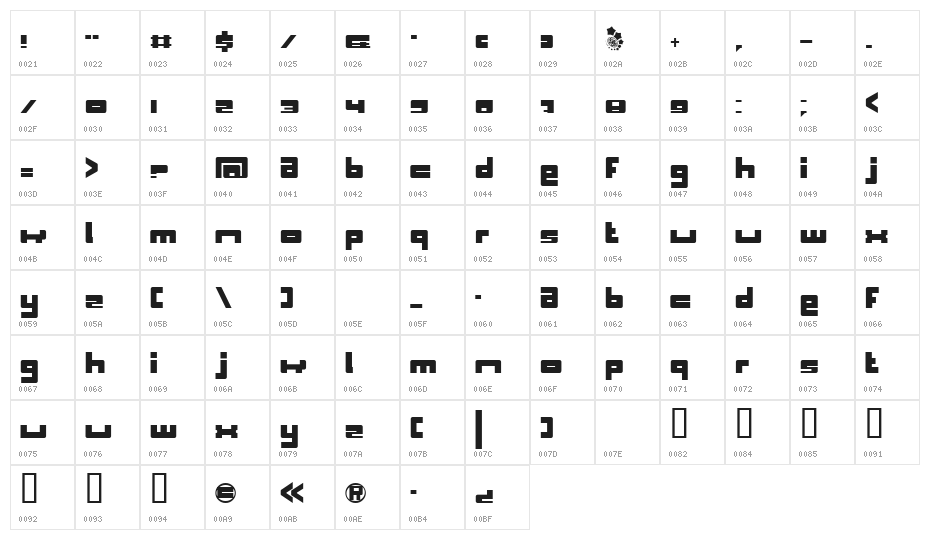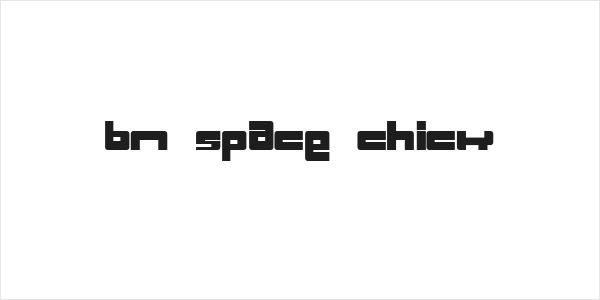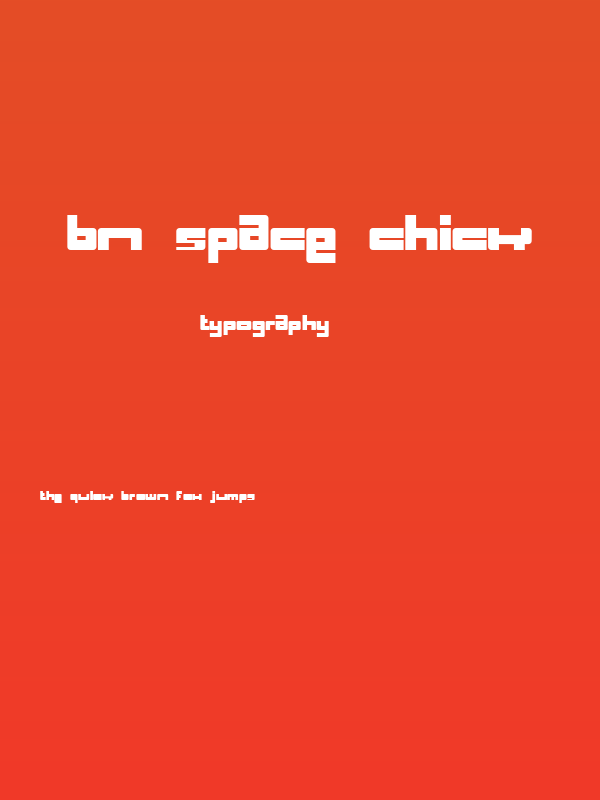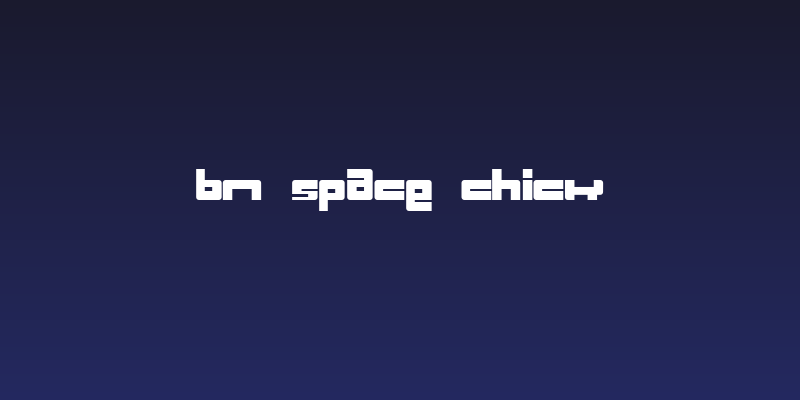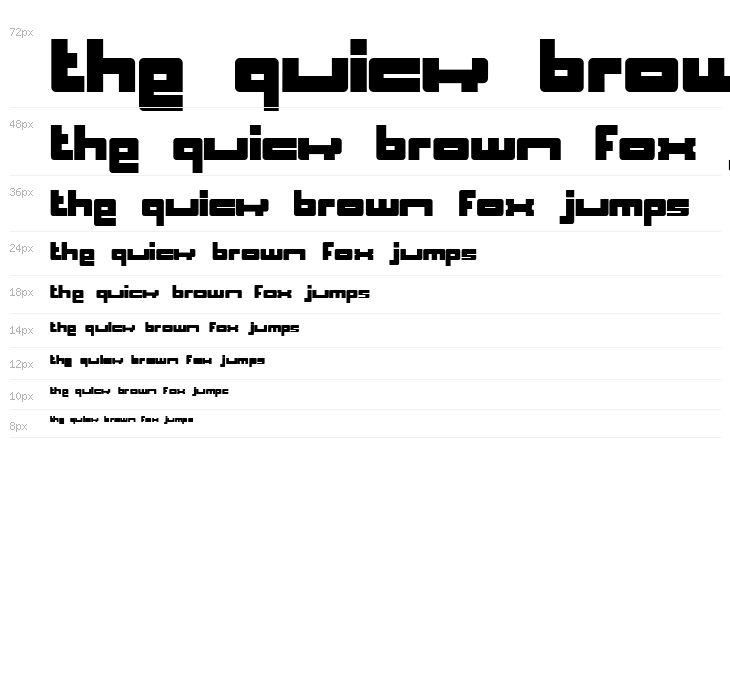
BN Space Chick Font
BN Space Chick Description
This font features a bold, futuristic design with a distinctly geometric and blocky appearance. The characters are uniformly wide, with sharp angles and a consistent stroke width that gives it a strong, impactful presence. The uppercase and lowercase letters maintain a similar style, enhancing the font's cohesive look. The numerals and special characters are designed to match the overall aesthetic, making it suitable for projects that require a modern and technological feel. The font's unique style is ideal for creating eye-catching headlines, logos, and branding materials that demand attention.
| Proposed Projects | Ideal for sci-fi themed designs, technology branding, video game titles, and futuristic posters. |